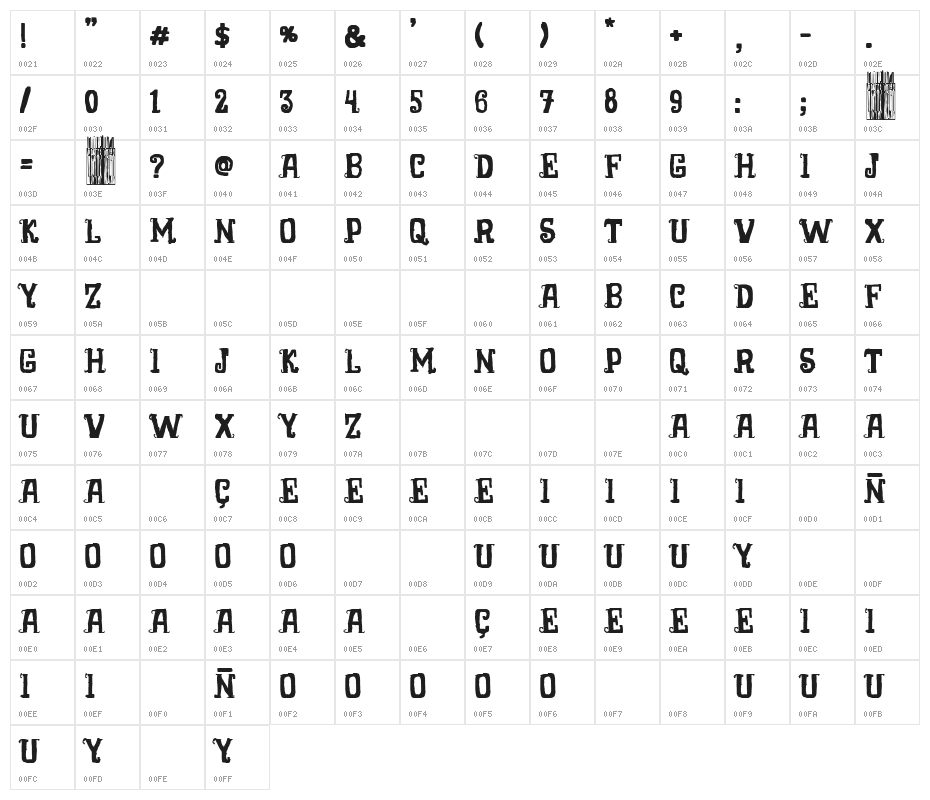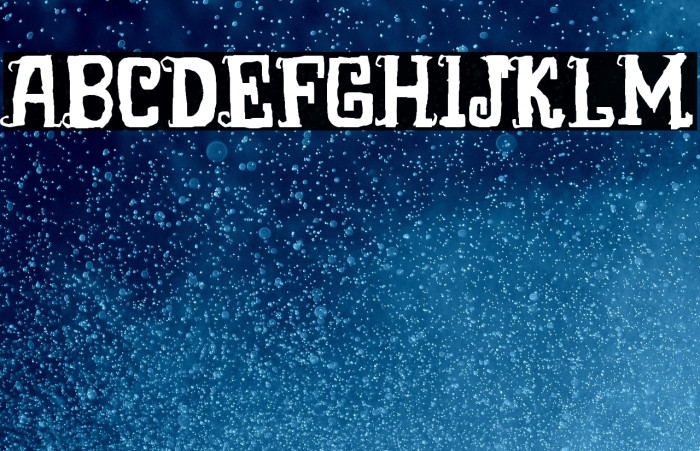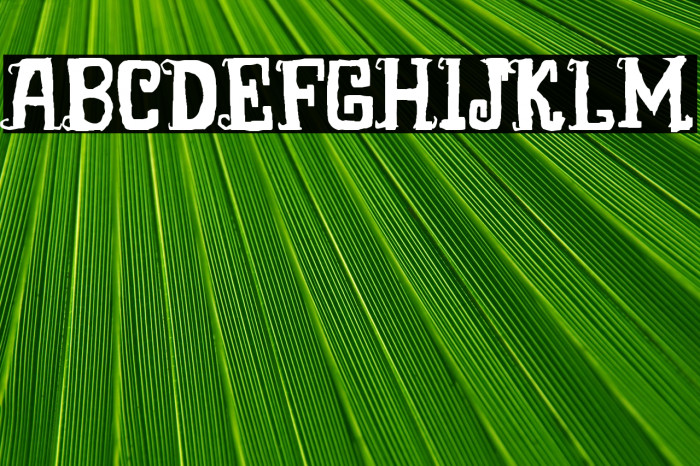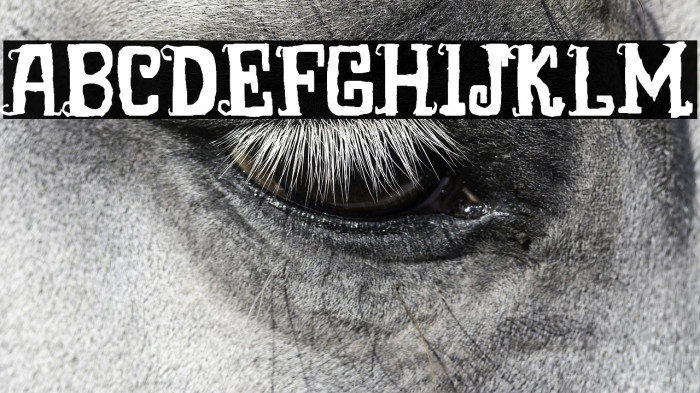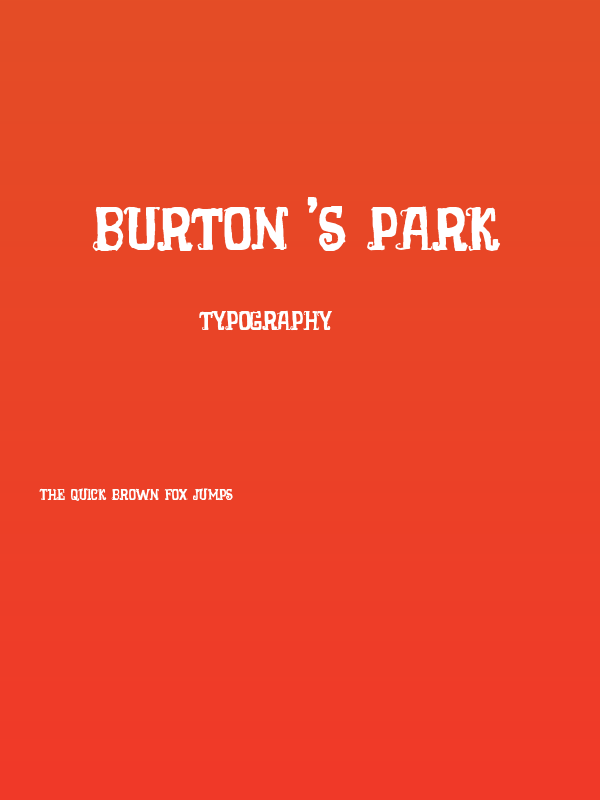
Burton's Park Font
Burton's Park Description
This font features a bold and decorative style with a playful, vintage flair. The characters are designed with unique, ornate details that give them a whimsical and eye-catching appearance. The uppercase and lowercase letters maintain a consistent weight, creating a cohesive look across the alphabet. The numbers and special characters are equally stylized, ensuring a uniform aesthetic throughout. The font's boldness and decorative elements make it suitable for projects that require a strong visual impact.
| Overall Style | Vintage, Decorative |
| Proposed Projects | Ideal for poster designs, vintage-themed branding, event invitations, and creative headlines. |